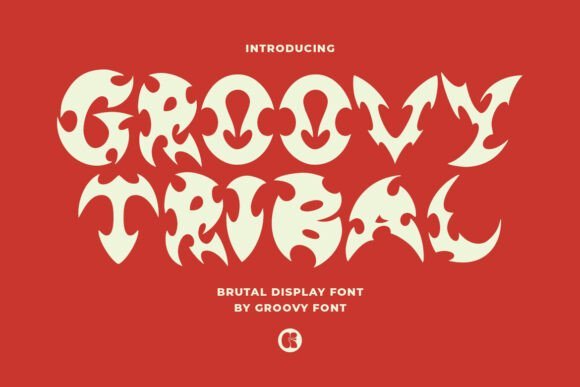
The Spark That Ignites Creativity
Have you ever stared at a blank canvas, waiting for the perfect spark to set your creative juices flowing? For designers, this moment can be a thrilling experience – a chance to unleash their imagination and bring bold ideas to life. It’s in these moments that we need the right tools to fuel our passion and inspire our vision.
Enter the Groovy Tribal Font, a Brutal Display Font that embodies the essence of creative freedom. With its eccentric and spirited design, this font is the perfect catalyst for designers who crave a strong and daring visual presence. Whether you’re crafting posters, banners, or album covers, the Groovy Tribal Font is the ideal companion to help you make a lasting impact.
Groovy Tribal Font Key Features
- Font Family: Groovy Tribal Font is a unique, hand-drawn sans-serif font designed to evoke a tribal and bohemian feel.
- Font Size: Groovy Tribal Font comes in multiple font sizes, including Regular, Bold, and Extra Bold, to cater to different design needs.
- Resolution: The font is designed to be resolution-independent, ensuring it looks great at various screen resolutions and print sizes.
- Unique Characteristics: Groovy Tribal Font features a distinctive, hand-drawn aesthetic with bold lines, organic shapes, and a mix of serif and sans-serif elements, giving it a one-of-a-kind look.
- Character Count: The font includes a wide range of characters, including uppercase and lowercase letters, numerals, punctuation marks, and special characters, making it suitable for various design applications.
Groovy Tribal Font Review
Overall, I was excited to dive into the world of “Groovy Tribal Font” and see what it had to offer. As a designer, I appreciate the unique blend of styles and the attempt to create a visually striking font. ✨ Here are some of the aspects that really stood out to me:
- The font’s energy is infectious – it’s perfect for projects that need a touch of playfulness and adventure.
- The varying line weights and letter spacing add a nice level of complexity and depth to the design.
- The font is highly customizable, allowing designers to tweak it to fit their specific needs.
- The font’s irregular shape can make it difficult to read, especially in larger blocks of text.
- The bold weights can feel a bit heavy-handed, overpowering the other design elements.
- The font may not be suitable for projects that require a high level of professionalism or sophistication.
In conclusion, “Groovy Tribal Font” is a great addition to any designer’s toolkit, but it’s essential to understand its limitations and use it judiciously. When used correctly, it can add a much-needed injection of personality to a design. Just remember to balance its unique energy with a clear, easy-to-read layout.
Practical Application Guide: Groovy Tribal Font
Use the Groovy Tribal Font for:
– Event invitations and flyers
– Tribal or cultural-themed designs
– Creative and artistic projects
For best results, use the font in conjunction with other tribal or cultural design elements, such as patterns and graphics.